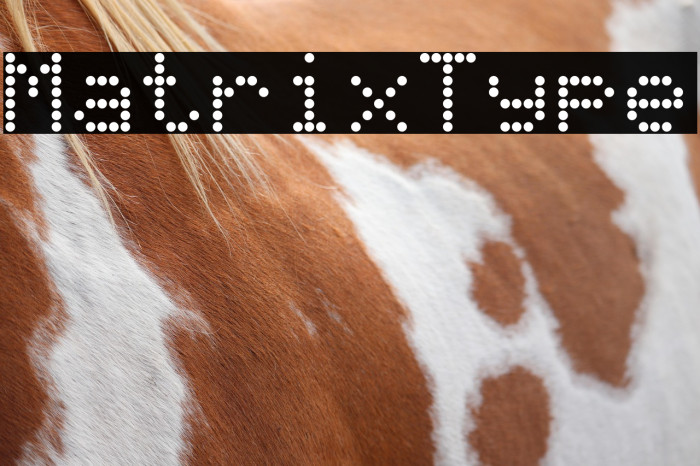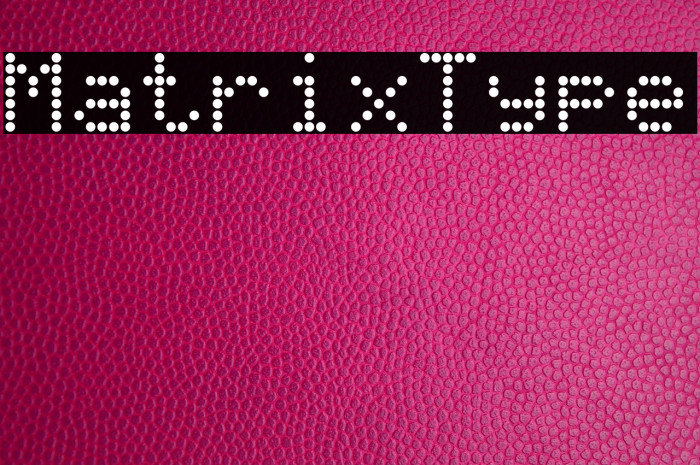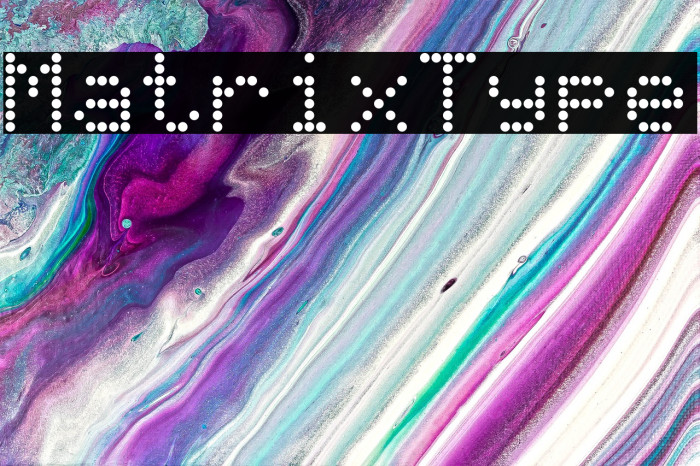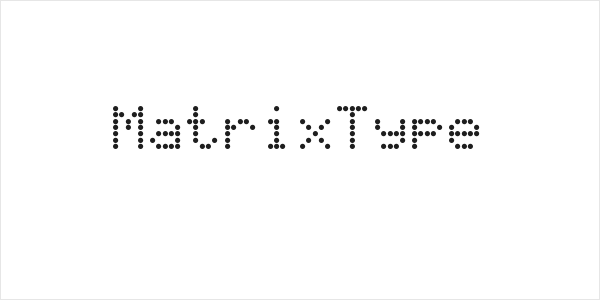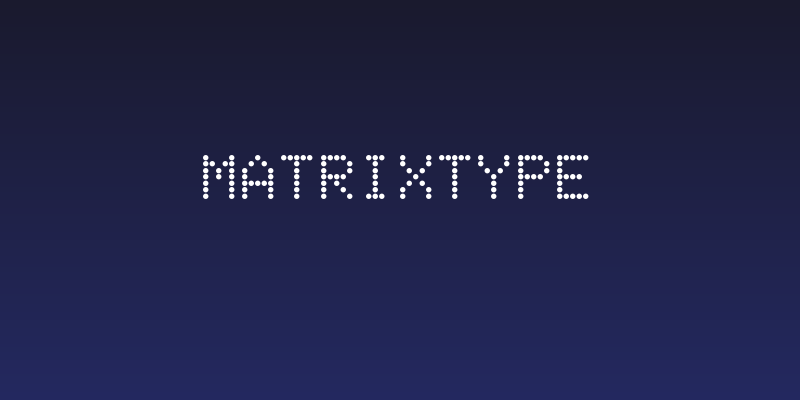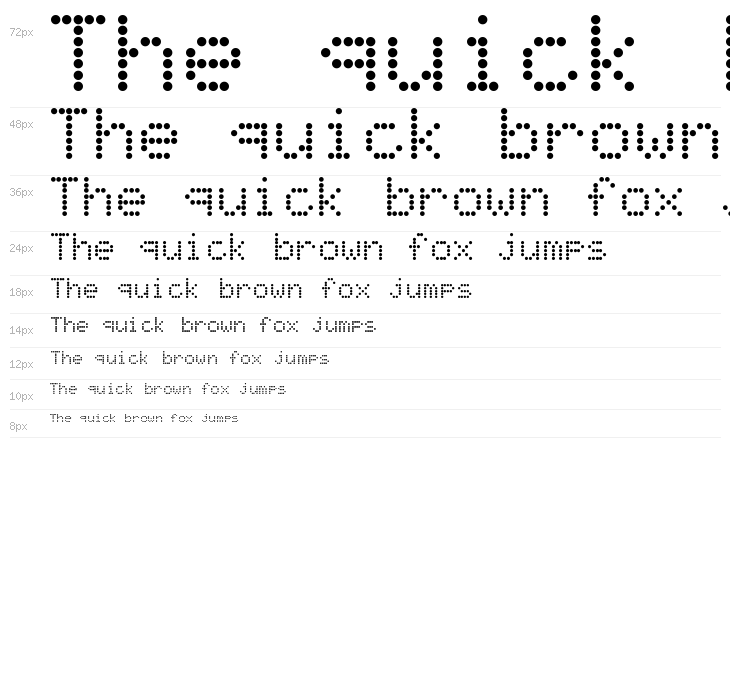
MatrixType Font
MatrixType Description
This font features a unique dot matrix style, where each character is composed of small, evenly spaced dots. The design is reminiscent of digital displays or LED screens, giving it a modern and technological feel. The characters are clearly defined, maintaining legibility despite the unconventional structure. This font is particularly striking in its ability to convey a sense of digital or retro-futuristic aesthetics, making it suitable for projects that require a tech-savvy or innovative look.
| Use Case | Headlines, Logos, Digital displays |
| Proposed Projects | Ideal for digital displays, tech-themed posters, retro-futuristic designs, and innovative branding. |